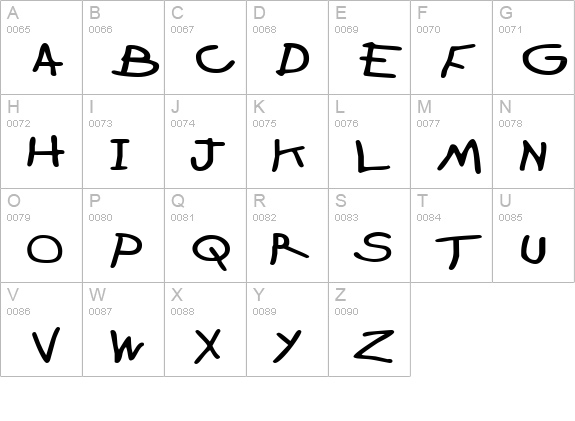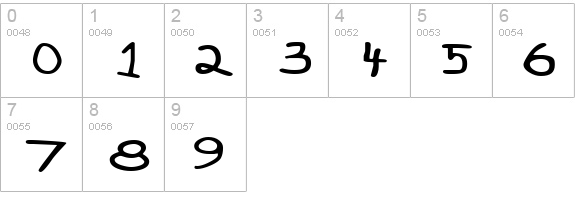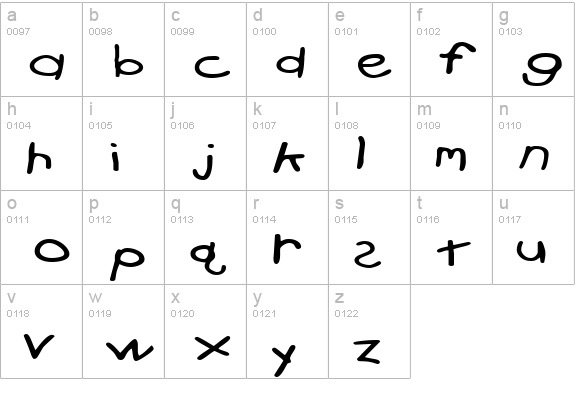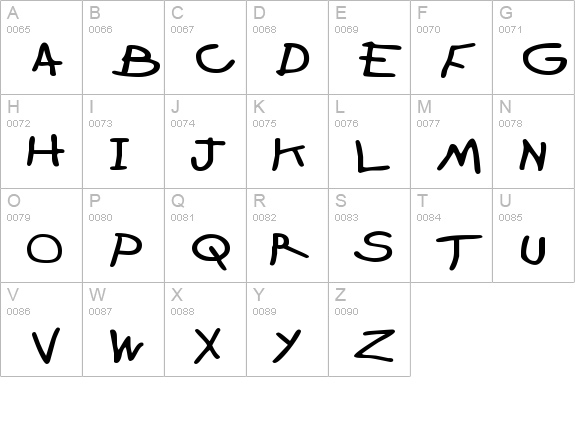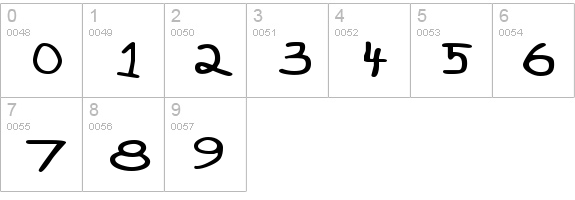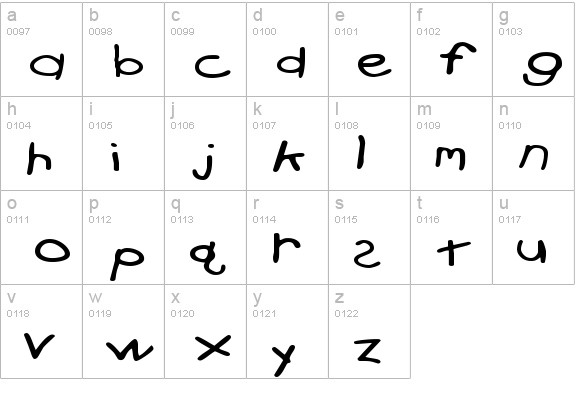
CrayonExtended is a playful and charming hand-drawn font that brings a whimsical touch to any design project. With its quirky and irregular strokes, this font captures the essence of a child's imagination and creativity. Perfect for adding a fun and unique element to posters, invitations, and other creative projects, CrayonExtended will surely stand out from the crowd. Best of all, CrayonExtended is available for free download at FontsMarket.com. So go ahead and unleash your creativity with this delightful font that is sure to bring a smile to your audience's faces.